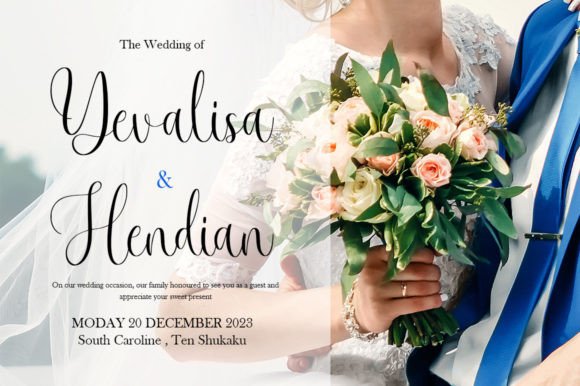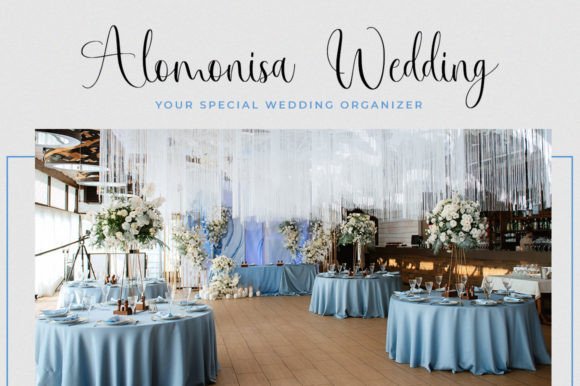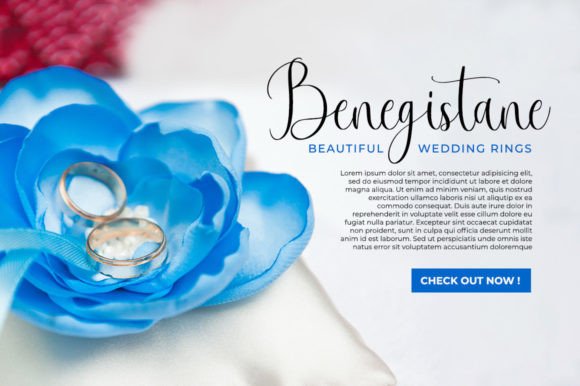
Introduction to Humingtones Font
Have you ever been working on a creative project, pouring your heart and soul into it, only to realize that the perfect font is missing to bring it all together? That’s where the Humingtones Font comes in – a stunning script font that adds a touch of elegance and sophistication to your design.
As a valuable design resource, Humingtones Font offers a high-quality solution for designers looking to give their projects a personal and modern look. With its classy and refined feel, it’s the perfect addition to any creative endeavor, from art projects to branding materials.
Key Features of Humingtones Font
- High-quality design resource ideal for creative projects, with a unique and eye-catching aesthetic.
- Supports a wide range of languages, including Latin, Cyrillic, and Greek scripts.
- Designed to be highly legible at various resolutions, making it suitable for use in digital and print applications.
- Includes a comprehensive character set, including uppercase and lowercase letters, numbers, and punctuation marks.
Honest Review: Humingtones Font
I recently stumbled upon the Humingtones Font while searching for a unique design resource for my creative project. I must say, I was impressed by its high quality and versatility.
Here are some of the things that work well with the Humingtones Font: ✨
- Wide range of font styles and weights, making it suitable for various design applications
- Transparent background, allowing for easy customization and layering
However, I did encounter some limitations with the Humingtones Font: ⚠️
- Some font styles may appear a bit pixelated when scaled up
- Limited support for certain languages and character sets
Overall, I’m impressed with the Humingtones Font’s potential as a design resource. While it may have some limitations, its unique style and high quality make it a valuable addition to any designer’s toolkit.
Tips for Getting the Most Out of Humingtones Font
When using the Humingtones Font, consider the following tips: use a transparent background to create a clean and modern look, experiment with different font sizes and colors to add visual interest, and pair the font with other design elements to create a cohesive visual identity.
Common Use Cases for Humingtones Font